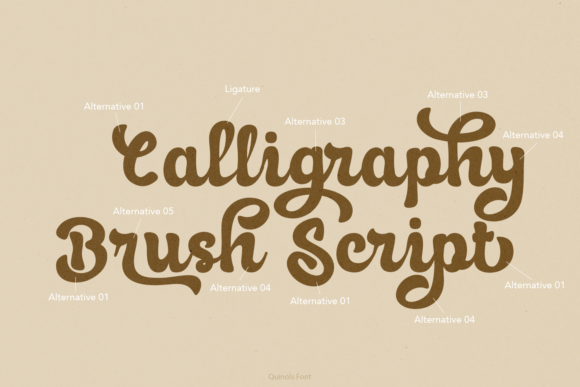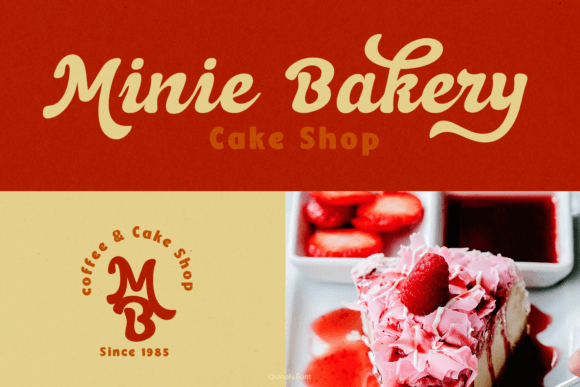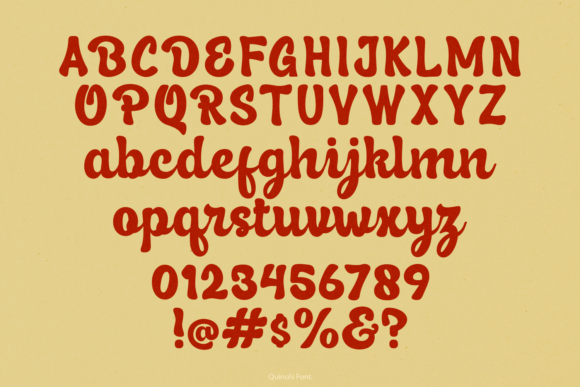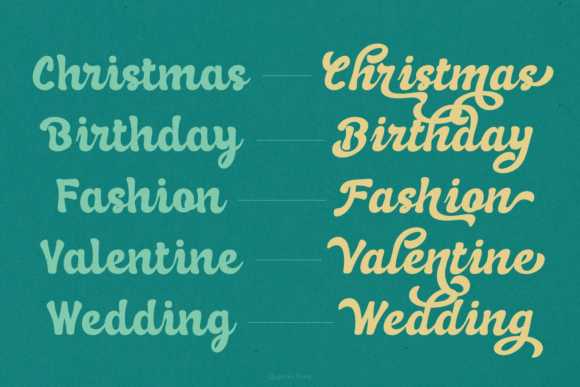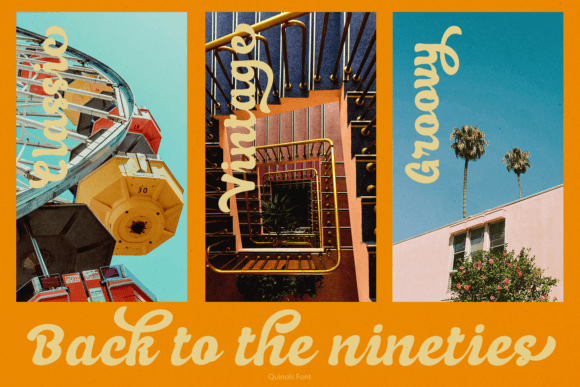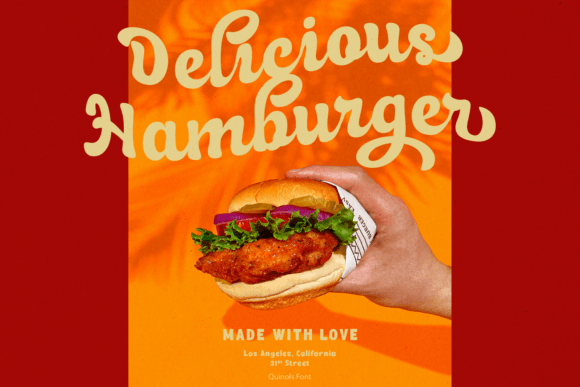
Introduction to Quinols Font
Quinols Retro Script font comes with a curly style with a lot of alternatives and ligature.
This font is perfect for poster design, book covers, merchandise, fashion brands, advertising, magazines, album covers, wedding invitations, and more .
Key Features of Quinols Font